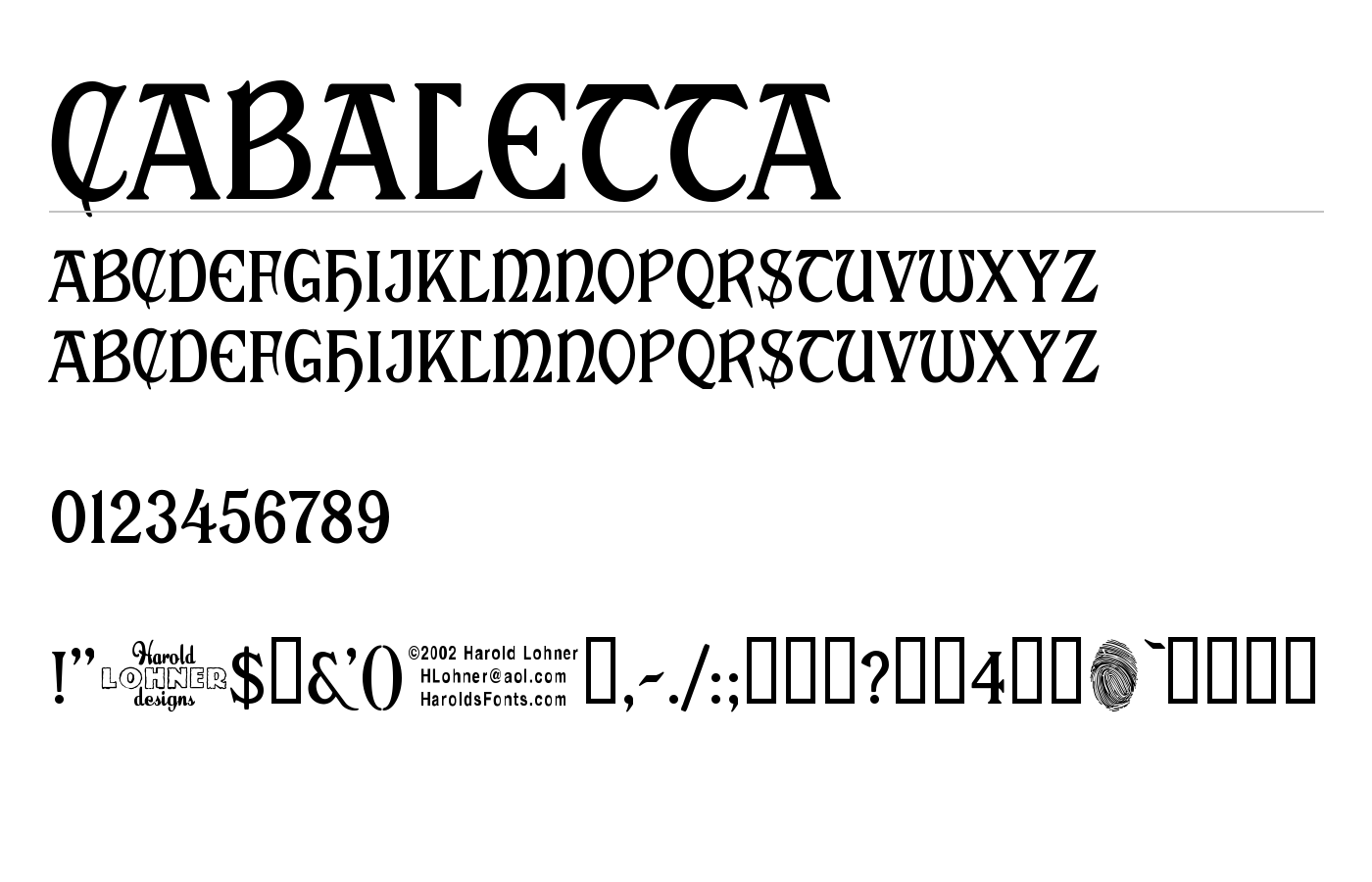
Cabaletta is a unique serif font characterized by its playful, slightly calligraphic letterforms with a distinct vintage flair. Its medium weight and moderate contrast, combined with quirky, irregular shapes and pronounced serifs, give it an artistic and expressive personality ideal for decorative use. This font works wonderfully for creative branding, headlines, and titles where a touch of individuality and charm is desired.
Cabaletta Font
About Cabaletta Font